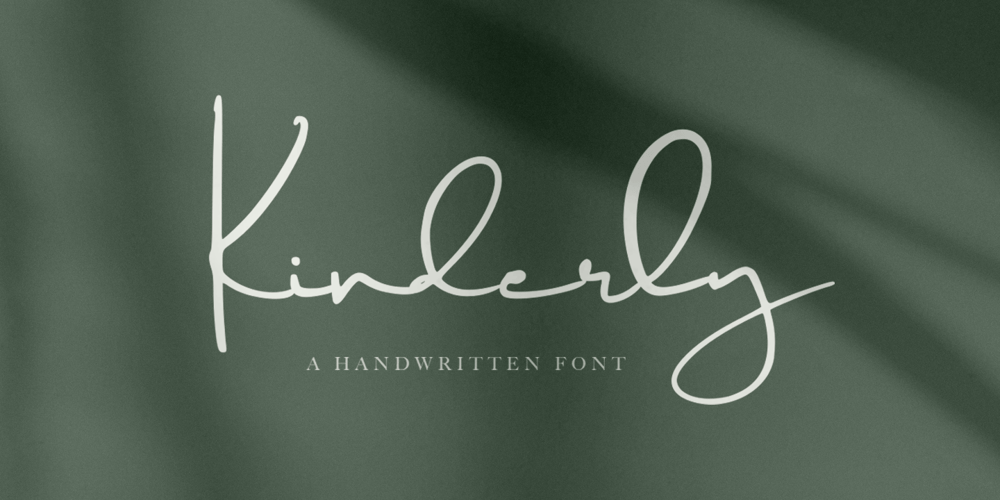
Kinderly Font Family was designed by Vava Aryanto and published by FallenGraphic. Kinderly contains 1 styles and family package options. Kinderly is perfect for many different projects such as logos & branding, invitation, stationery, wedding designs, social media posts, advertisements, product packaging, product designs, label, photography, watermark, special events, or anything.what’s inside : Accents (Multilingual Characters) PUA encoded Numerals and Punctuations (OpenType Standard) ligature